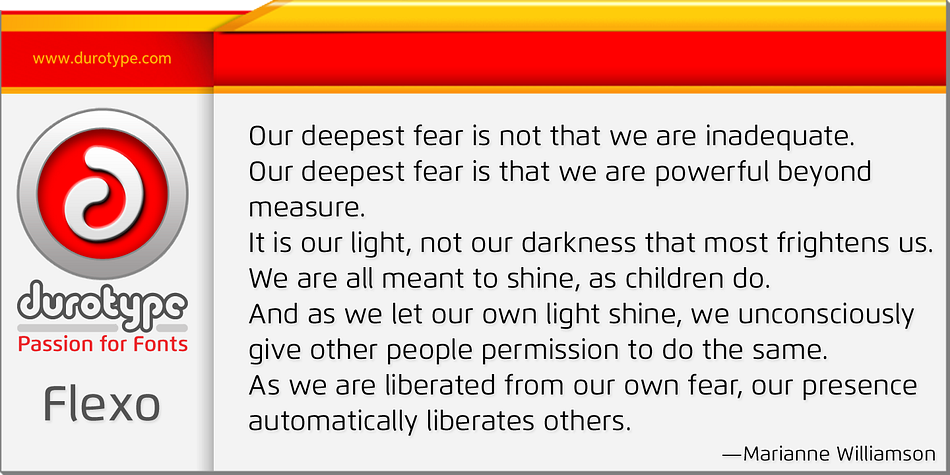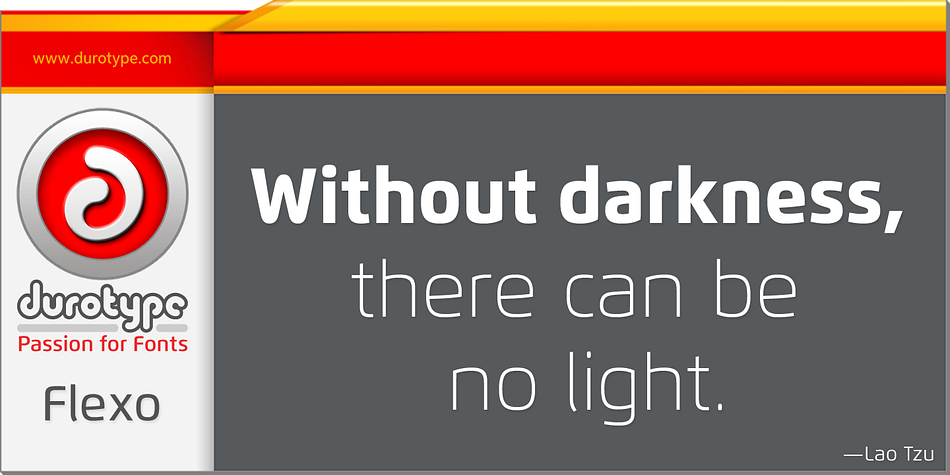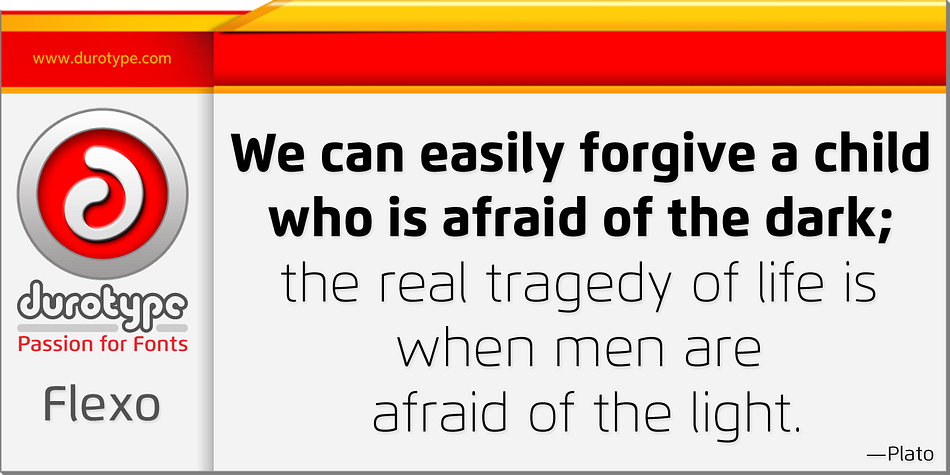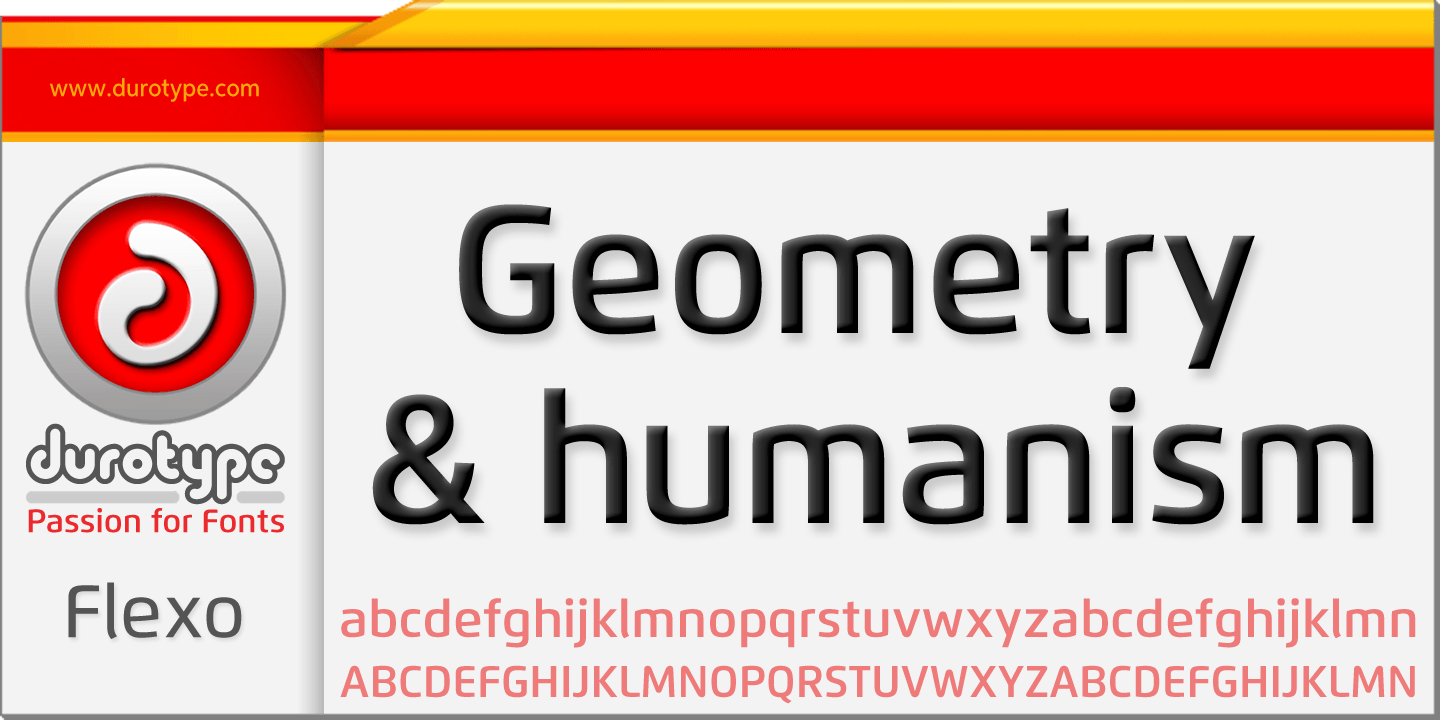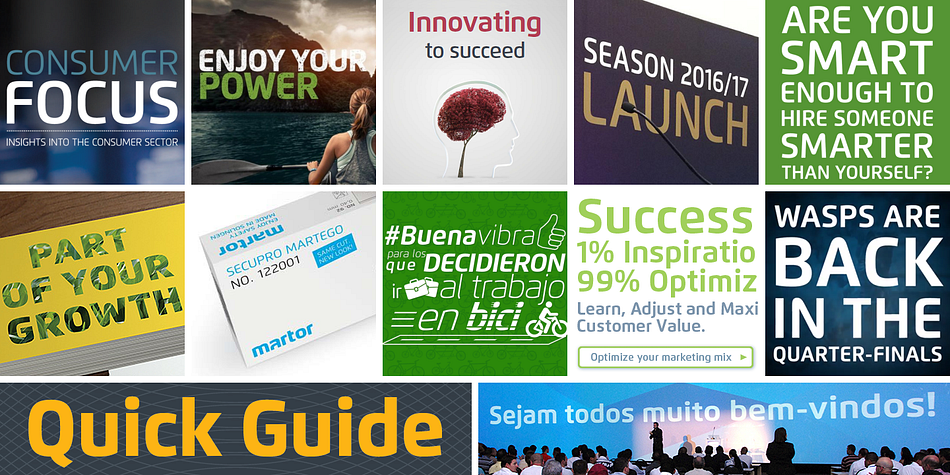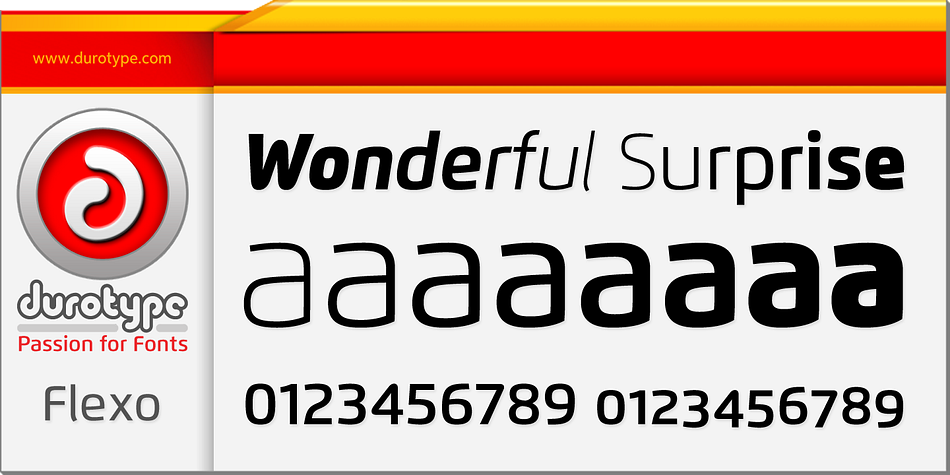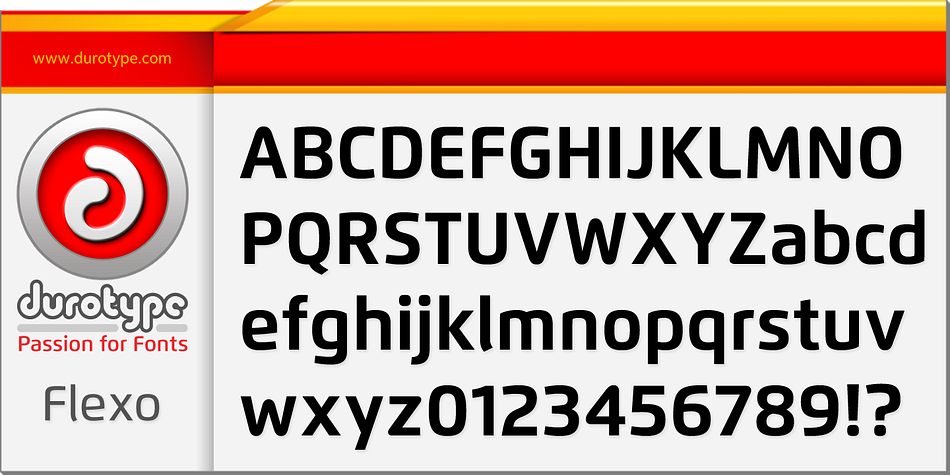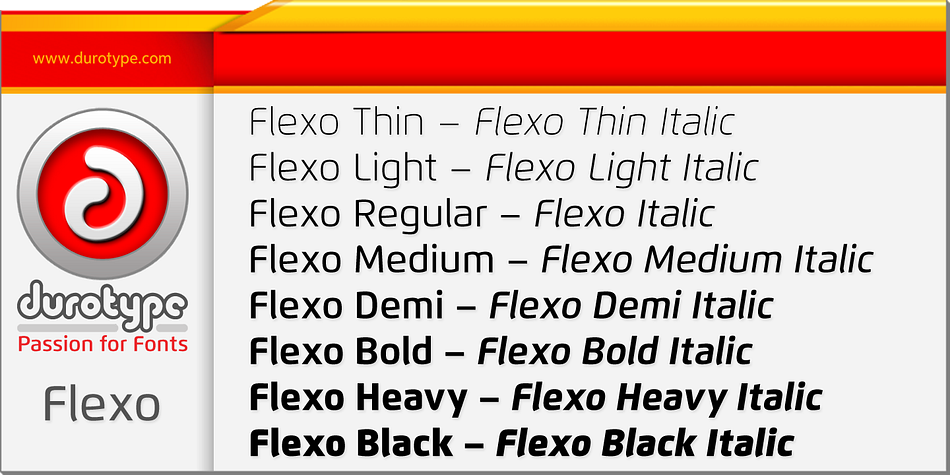
Flexo is a sans serif font family. This typeface has seventeen styles and was published by Durotype.
Flexo is a geometric sans typeface, with humanistic warmth. It is a synthesis of the geometric and the humanistic. It has both mathematical straightforwardness, and humanistic refinement.
Flexo has a squarish design, making it stand out in many uses. It will shine in both headlines and text. It is well suited for graphic design and corporate identity design. Flexo has sixteen styles, extensive language support, eight different kinds of figures, sophisticated OpenType features — so it’s ready for advanced typographic projects.